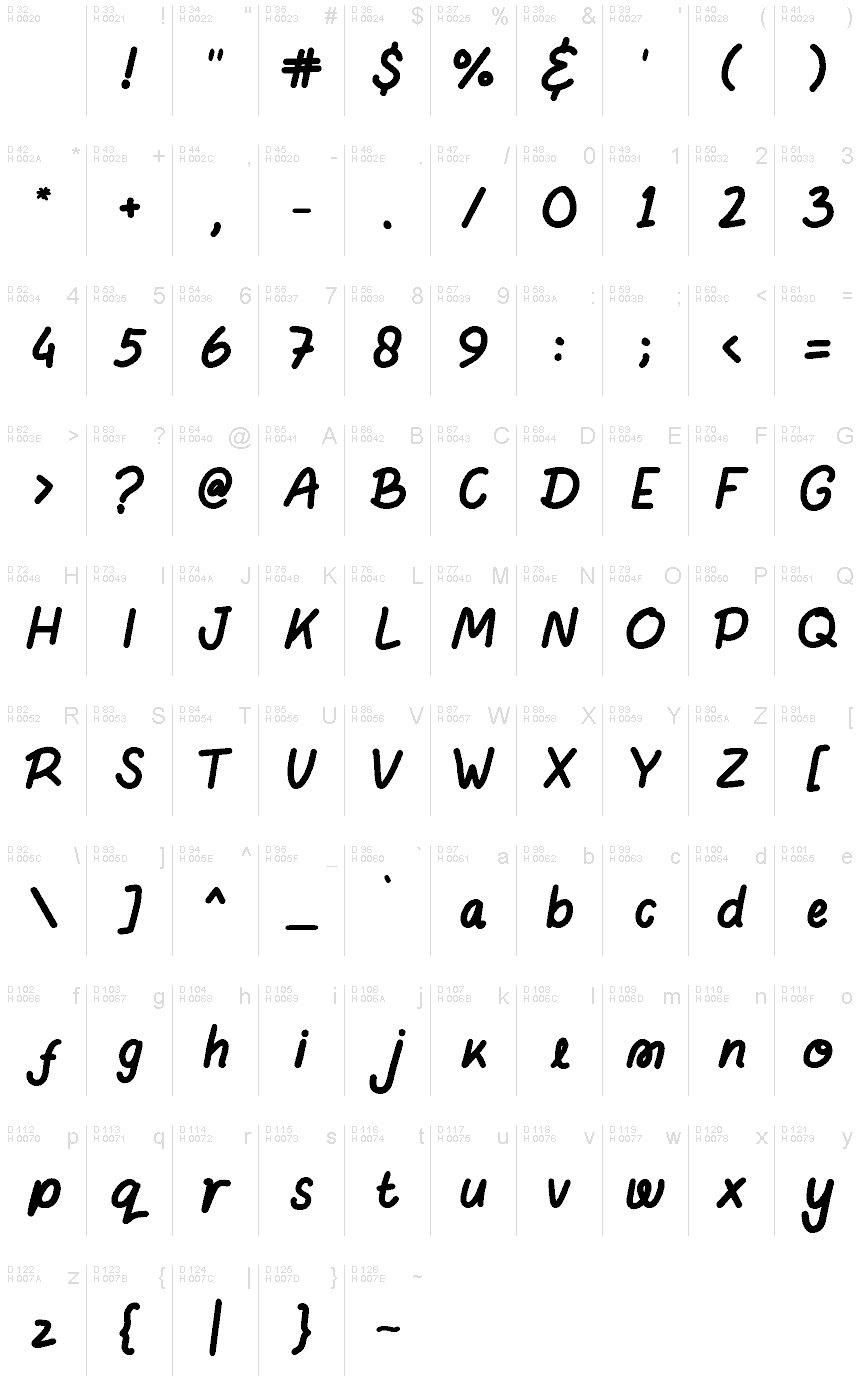
UMOGARE
Umogare font is a free handwritten font from Enxyclo Studio, combining a relaxed and casual script style. It has an approachable look reminiscent of drawn letters with a unique modern brush script vibe. The atmosphere of this typography style is friendly and its character, as well as its energy, will translate into your numerous design projects.
{Umogare} is great for a range of items such as book covers, wedding invitations, greeting cards, posters, billboards and many more. Use it for mugs and tote bags printouts for personal use or branded ones related to business. Mockups like logos or banners are other possible usages that you can try with this tool!